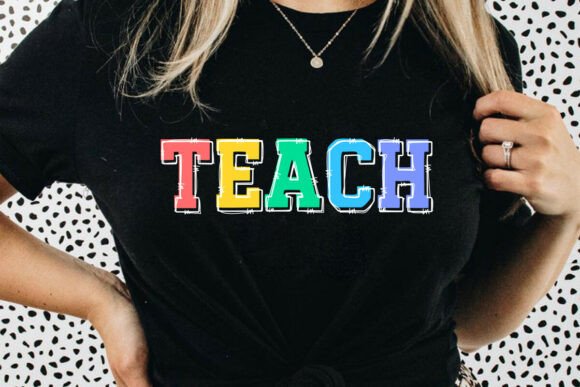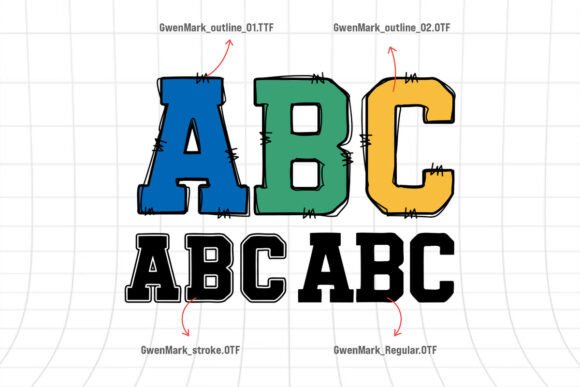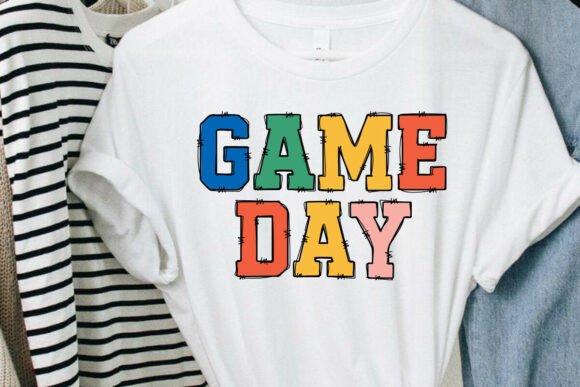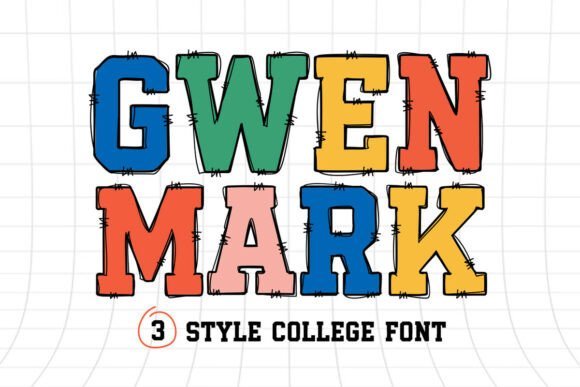
Introduction to Gwen Mark Font
Gwen Mark is a unique varsity college grunge decorative font perfect to be used in your new creative projects, such as crafting, t-shirt designs, posters, digital designs, presentations, book covers, and much more.
Add it to your most creative ideas, and notice how it makes them come alive .
Why Choose Gwen Mark Font?
Gwen Mark Font offers exceptional quality and versatility, making it a valuable addition to your design toolkit. Whether you’re creating for personal projects or commercial use, Gwen Mark Font delivers professional results.